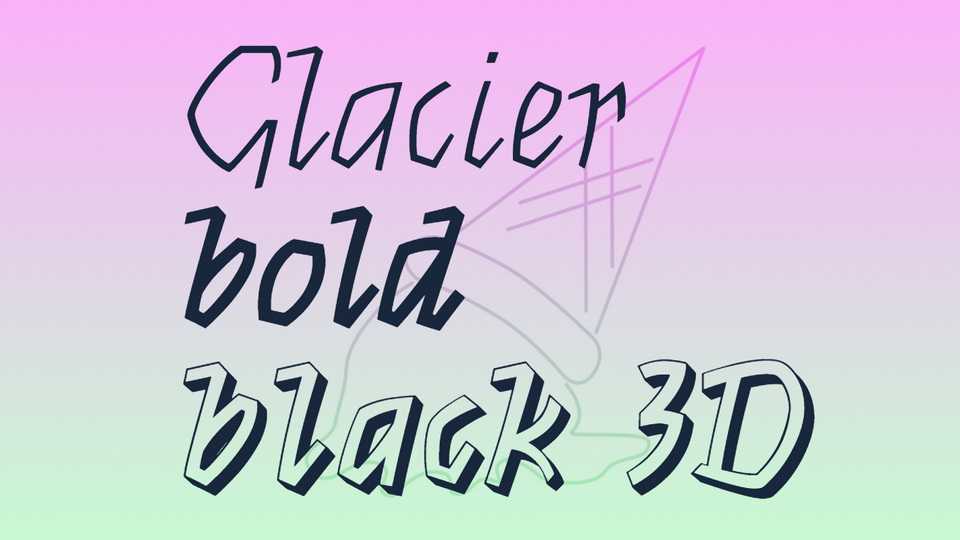
Download Glacier typeface, a font family in three styles based on the Mercurius skeleton, drawn by Imre Reiner. Glacier’s vernacular design and expressiveness is reminiscent of sign lettering
Designer: Quentin Juhel